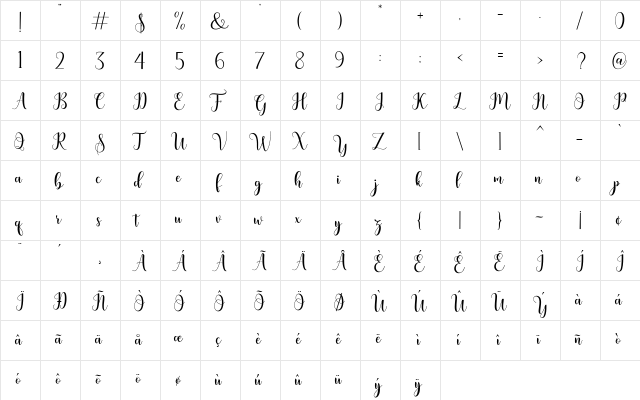
bertilda Regular
| Foundry | Amarlettering_Kamaruddin |
| Designer | Amarlettering_Kamaruddin |
Design Context for bertilda Typeface
bertilda is a composed and adaptable typeface that performs quietly and consistently across a wide range of design contexts.